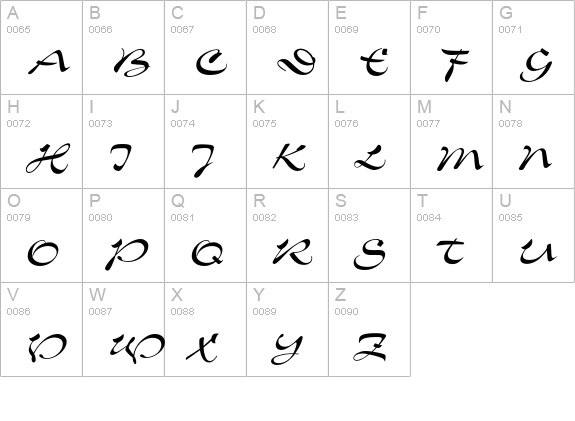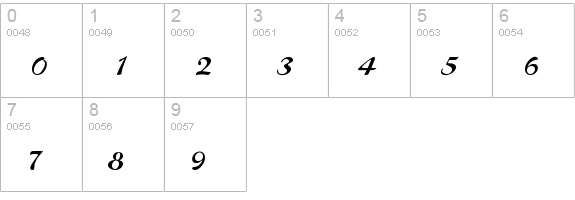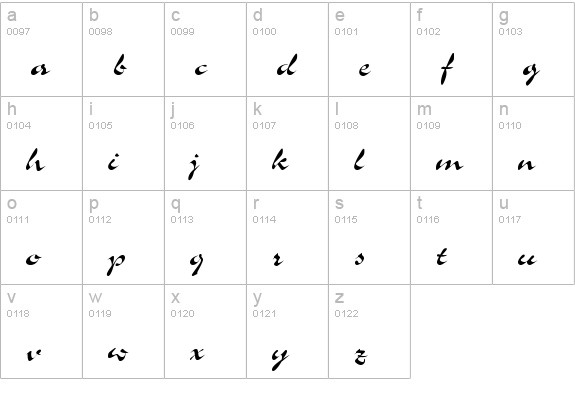
Slogan D Font Details
Introducing Slogan D font, the epitome of modernity and sophistication. With its sleek and stylish design, this font is perfect for adding a touch of elegance to any project. Whether you're creating a logo, designing a website, or crafting eye-catching advertisements, Slogan D font is sure to make a lasting impression. But what sets Slogan D font apart from the rest? It's the fact that it's not just visually stunning, but also completely free. That's right, you heard it correctly. Slogan D font is freely available to download at FontsMarket.com, allowing you to access this incredible font without any cost. Imagine the possibilities that come with having access to such a high-quality font without breaking the bank. From professional designers to aspiring creatives, Slogan D font is the ultimate tool for bringing your ideas to life. Its versatility and legibility make it suitable for various projects, ensuring that your message is delivered with clarity and style. The attention to detail in every curve and line of Slogan D font showcases the dedication and commitment of its creators. Each character is meticulously crafted to ensure a seamless and visually appealing experience. The clean and sharp edges of the letters create a modern and contemporary aesthetic, making Slogan D font a perfect choice for any design that requires a touch of sophistication. With Slogan D font, you can truly elevate your designs to new heights. Whether you're designing a logo for a luxury brand, creating a professional presentation, or adding a touch of elegance to your personal projects, this font is guaranteed to make a statement. Don't miss out on this incredible opportunity to enhance your creative endeavors. Download Slogan D font for free at FontsMarket.com and unlock a world of possibilities. Elevate your designs, captivate your audience, and make a lasting impression with the sleek and stylish Slogan D font.